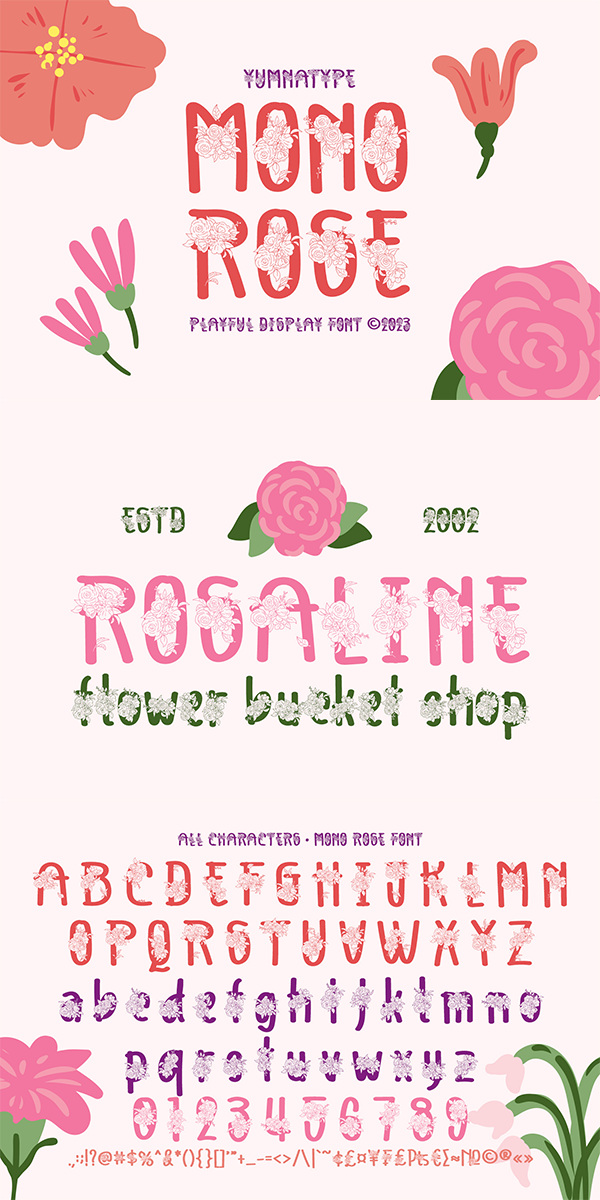
Mono Rose Font
About Mono Rose
Rose is able to produce beautiful, elegant displays to its advantage and able to make your designs look more attractive, and elegant for increasing the product’s attractiveness. You can use this font for big text sizes due to its unique shapes to ease you to read it. Mono Rose provides a clipart in accordance with the font theme as a bonus and features you can enjoy.
Mono Rose fits best for various design projects, such as brandings, headings, magazine covers, quotes, printed products, merchandise, social media, etc. Find out more ways to use this font by taking a look at the font preview.